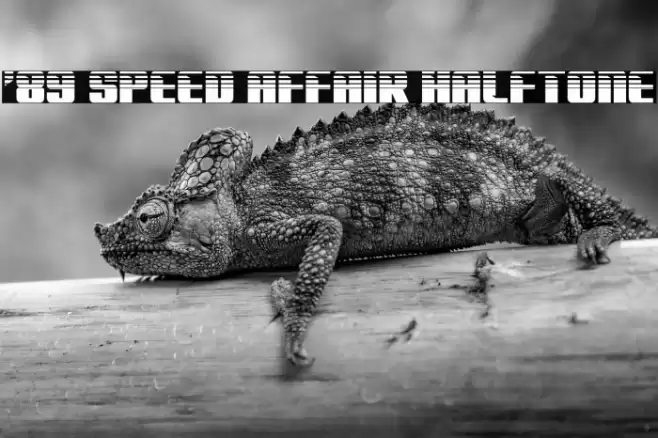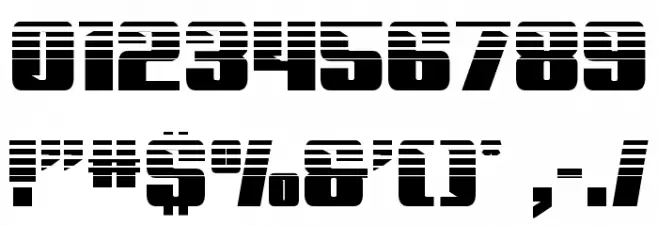
'89 Speed Affair Halftone Font
'89 Speed Affair Halftone Description
This font features a bold, geometric design with a distinct halftone effect that creates a sense of motion and speed. The characters are constructed with horizontal lines that give a dynamic, racing stripe appearance. The uppercase letters are uniform in height, while the lowercase letters maintain a consistent style, enhancing readability. The numerals and special characters follow the same design principles, ensuring a cohesive look across all glyphs. This font's unique style makes it stand out, ideal for projects that require a modern and energetic feel.
A bold, geometric font with a halftone effect, evoking speed and motion from Regular fonts.
- Font: '89 Speed Affair Halftone
- Proposed Projects: Ideal for sports branding, automotive advertisements, video game titles, and dynamic poster designs.